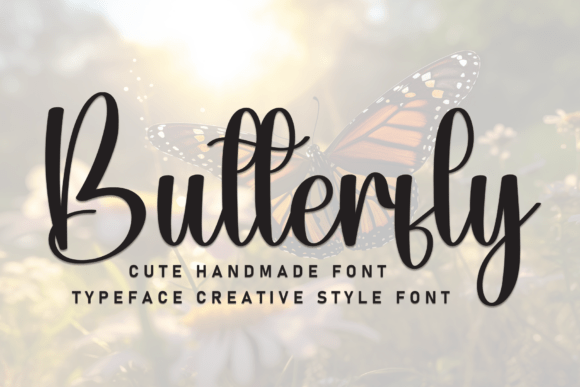
The Magic of Handwritten Fonts: Unleashing Creativity with Butterfly Font
Have you ever been in a creative flow, with ideas pouring out of you like water, and the only thing holding you back is the perfect font to match your vision? That’s where Butterfly Font comes in – a special creative product designed to give you an extraordinary experience. This beautiful, handwritten font is perfect for any project that requires a touch of elegance and sophistication.
Butterfly Font Key Features
- Font Family: Butterfly Font is a unique, hand-drawn font family designed to evoke the delicate beauty of butterflies.
- Character Count: The font family includes a wide range of characters, including uppercase and lowercase letters, numbers, punctuation marks, and special characters.
- Unique Characteristics: The Butterfly Font features intricate, hand-drawn details and subtle texture, giving it a distinctive, organic feel.
Designer Review: Butterfly Font
Overall, the Butterfly Font is a beautiful and delicate font that can add a touch of elegance to any design project. ✨ I particularly love the way the font’s curvy lines and organic shapes evoke a sense of whimsy and playfulness.
- The font’s flexibility in terms of font sizes and styles, making it suitable for a wide range of design applications.
- The unique and eye-catching letterforms that add visual interest to any text.
- The font’s high level of detail, with subtle variations in stroke width and curve that give it a hand-drawn feel.
- ⚠️ The font may be difficult to read at very small font sizes, due to the delicate nature of the letterforms.
- ⚠️ The font’s unique style may not be suitable for all types of design projects, particularly those that require a more serious or formal tone.
Overall, I think the Butterfly Font is a great choice for designers who want to add a touch of personality and whimsy to their work. While it may have some limitations, the font’s unique style and flexibility make it a valuable addition to any design toolkit.
Tips for Getting the Most Out of the Butterfly Font
1. Use the Butterfly Font for decorative text, such as titles, headings, and quotes.
2. Combine the Butterfly Font with other fonts for a unique and visually appealing look.
3. Experiment with different font sizes and styles to create a balanced and harmonious design.
2. Baby shower invitations and decorations.
3. Quirky and playful branding and marketing materials.
Alternatives to Butterfly Font
Great Vibes is a beautiful, elegant script font. It’s ideal for designs that require a touch of sophistication and romance. Great Vibes has a more refined and intricate design compared to Butterfly Font, making it suitable for invitations, wedding designs, and luxury branding.
Comparison to Butterfly Font: Great Vibes has a more complex and ornate design, while Butterfly Font has a more playful and whimsical feel.
Lobster is a casual, cursive script font. It’s perfect for designs that need a fun and approachable vibe. Lobster has a more relaxed and informal design compared to Butterfly Font, making it suitable for casual branding, social media, and advertising.
Comparison to Butterfly Font: Lobster has a more laid-back and casual feel, while Butterfly Font has a more elegant and refined design.